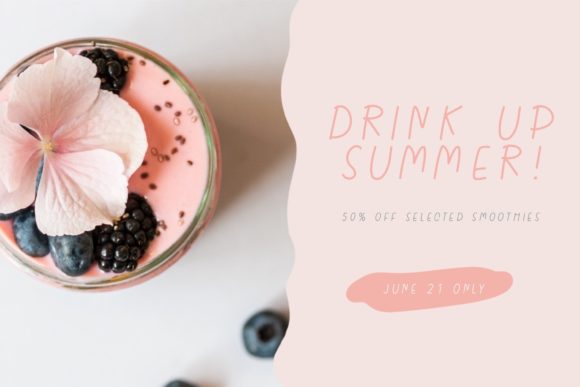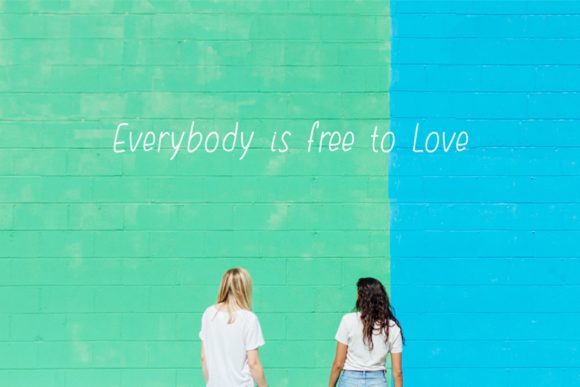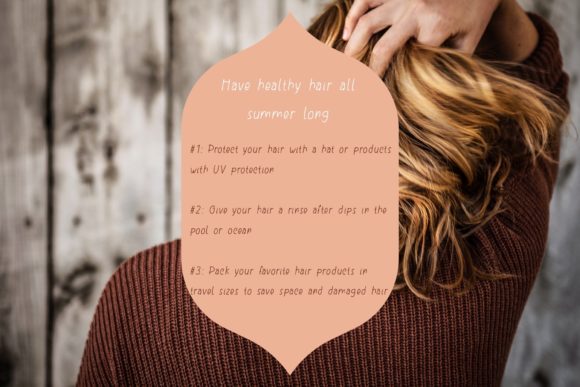
Meet the Perfect Companion for Your Next Design Project
Have you ever stared at a blank canvas, wondering what your next creative masterpiece would look like? For many designers, this moment of inspiration is a thrilling experience that sparks a new idea. And for those who love handwritten fonts, the possibilities are endless. Enter the Esther Font, a charming and neat handwritten font designed to elevate your branding projects.
The Esther Font is more than just a font – it’s a versatile tool that can bring your logo, t-shirt printing, and sporting designs to life. Its unique character and charm make it a valuable addition to any designer’s toolkit. With the Esther Font, you can create stunning visuals that stand out in a wide range of contexts, from digital to print.
Esther Font Key Features
- Font Family: Esther is a sans-serif font family.
- Size: The font family is available in various font sizes, from 8 to 72 points, with a corresponding font weight.
- Resolution: Optimized for print and digital use at 300 DPI (dots per inch).
- Unique Characteristics: Esther features a clean, modern design with a subtle rounded edge, making it suitable for various design applications.
Designer Review: Esther Font
Esther Font is a beautiful, elegant script font that’s perfect for creating eye-catching designs. Here’s my honest review.
- ✨ Elegant and refined aesthetic: Esther Font is perfect for creating sophisticated and luxurious designs.
- ✨ Great for body text: With a wide range of font sizes and styles, Esther Font is ideal for creating engaging body text.
- ✨ Versatile: Esther Font is suitable for a variety of designs, from fashion and beauty to luxury and lifestyle.
- ⚠️ Limited font weights: While Esther Font comes in a few font weights, it could benefit from more options to cater to different design needs.
- ⚠️ Limited language support: Esther Font may not support all languages, which could be a limitation for designers working with international clients.
Esther Font is a lovely script font that’s perfect for creating elegant and sophisticated designs. While it has some limitations, its versatility and refined aesthetic make it a great addition to any designer’s toolkit.
Esther Font is a elegant and sophisticated font that works well for a variety of projects, including:
– Wedding invitations
– Business cards
– Marketing materials
– Editorial content
– Headings and titles
Tips for getting the most out of Esther Font include:
– Using it in combination with other elegant fonts for a polished look
– Experimenting with different font sizes and colors to create visual interest
– Using it for headings and titles to create a clear hierarchy of information
Merriweather is a classic serif font that is suitable for body text, especially in print materials. It’s a great choice for designers who want a timeless and elegant look. Compared to Esther Font, Merriweather has a more traditional feel and is better suited for longer blocks of text.
Lato is a modern sans-serif font that is perfect for digital designs, such as websites and mobile apps. It’s highly legible and works well for short paragraphs of text. In comparison to Esther Font, Lato has a more minimalist feel and is better suited for modern and clean designs.
Playfair Display is an elegant script font that is ideal for headlines and titles. It adds a touch of sophistication and luxury to any design. Compared to Esther Font, Playfair Display has a more dramatic and attention-grabbing feel, making it perfect for high-end designs and branding materials.
Montserrat is a geometric sans-serif font that is highly versatile and suitable for a wide range of designs, from digital to print. It’s a great choice for designers who want a clean and modern look without sacrificing readability. In comparison to Esther Font, Montserrat has a more urban feel and is better suited for contemporary and minimalist designs.
Exploring the Unique Esther Font
Create a visually appealing travel journal using the Esther Font. This font’s playful and vintage feel is perfect for capturing memories from your adventures.